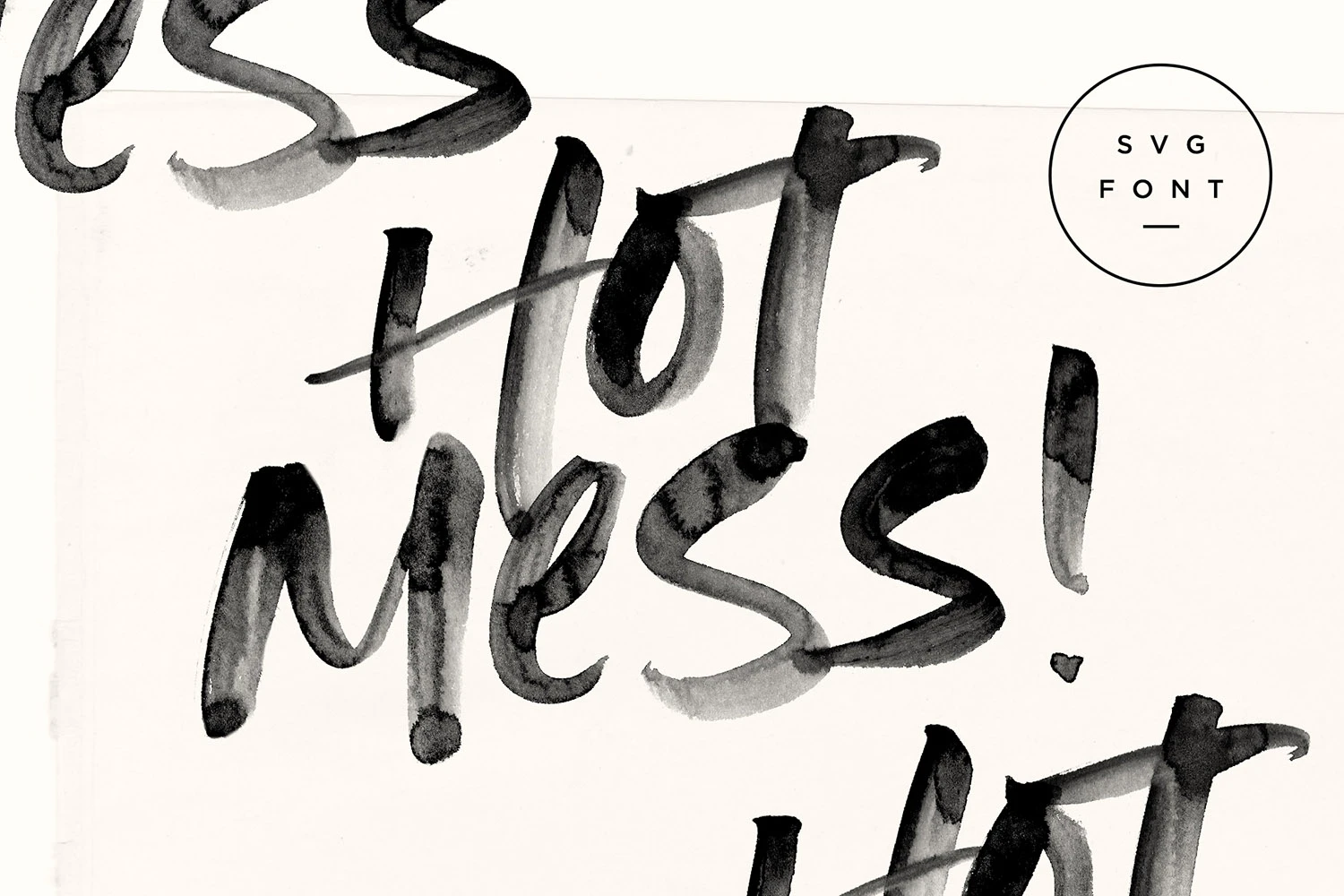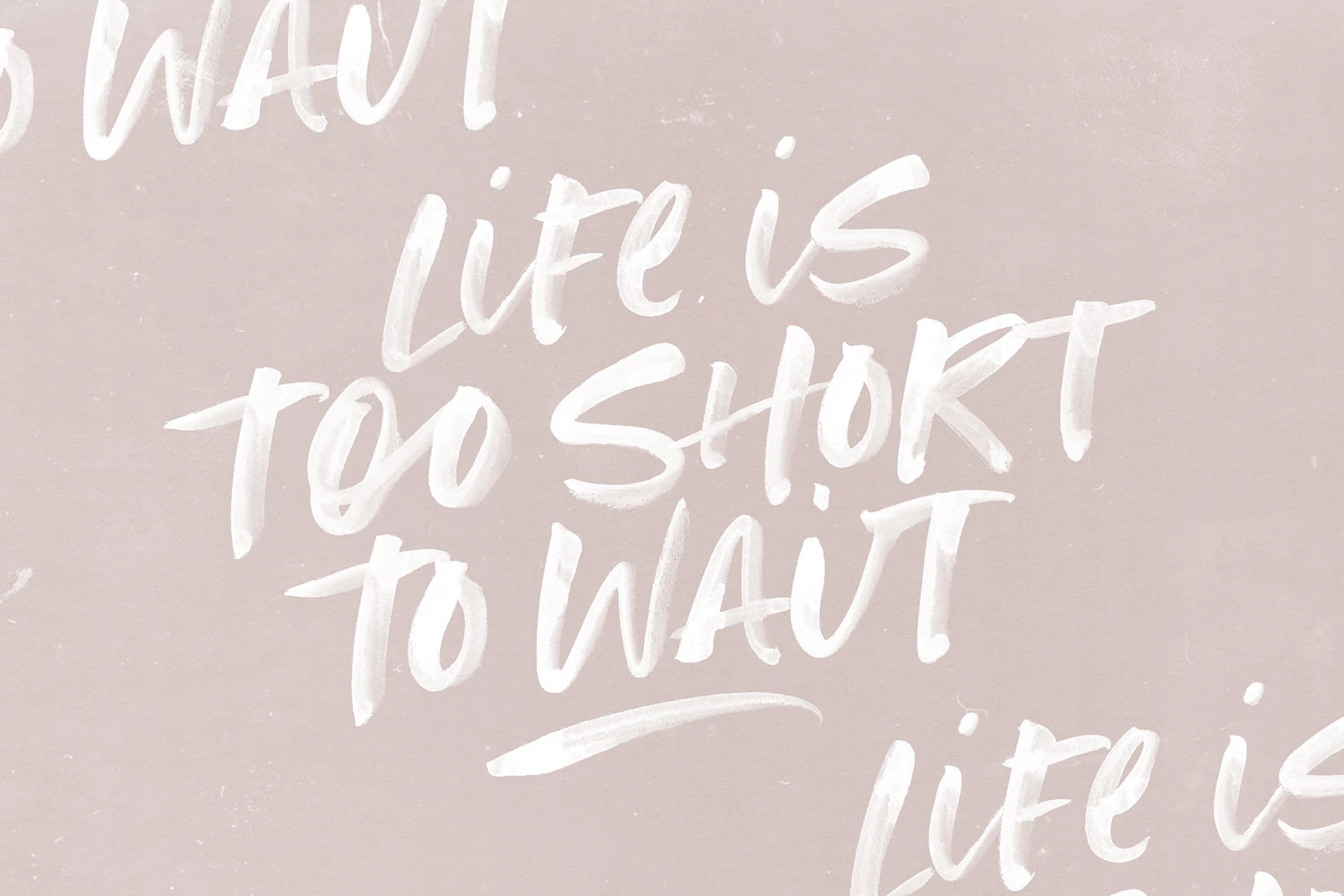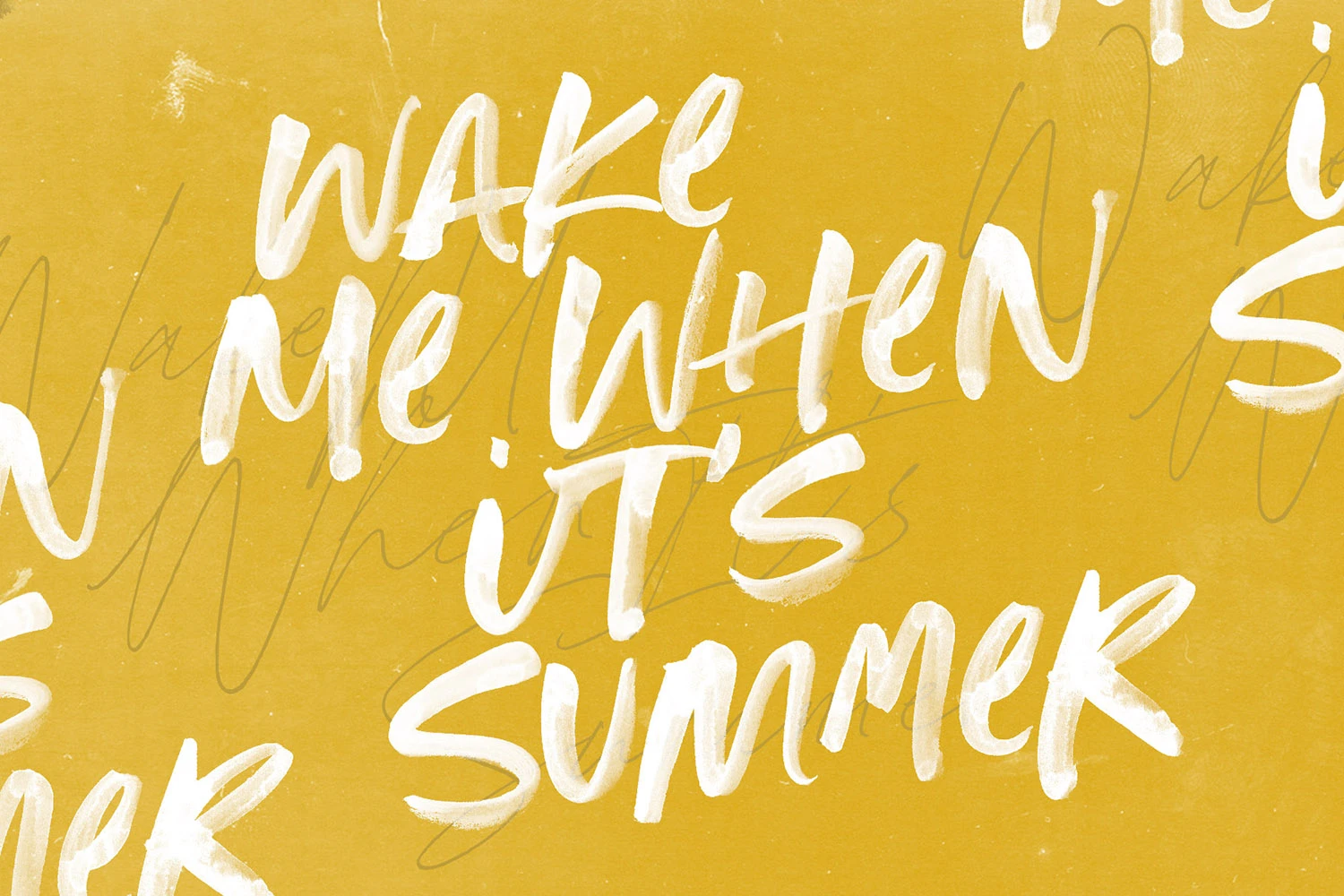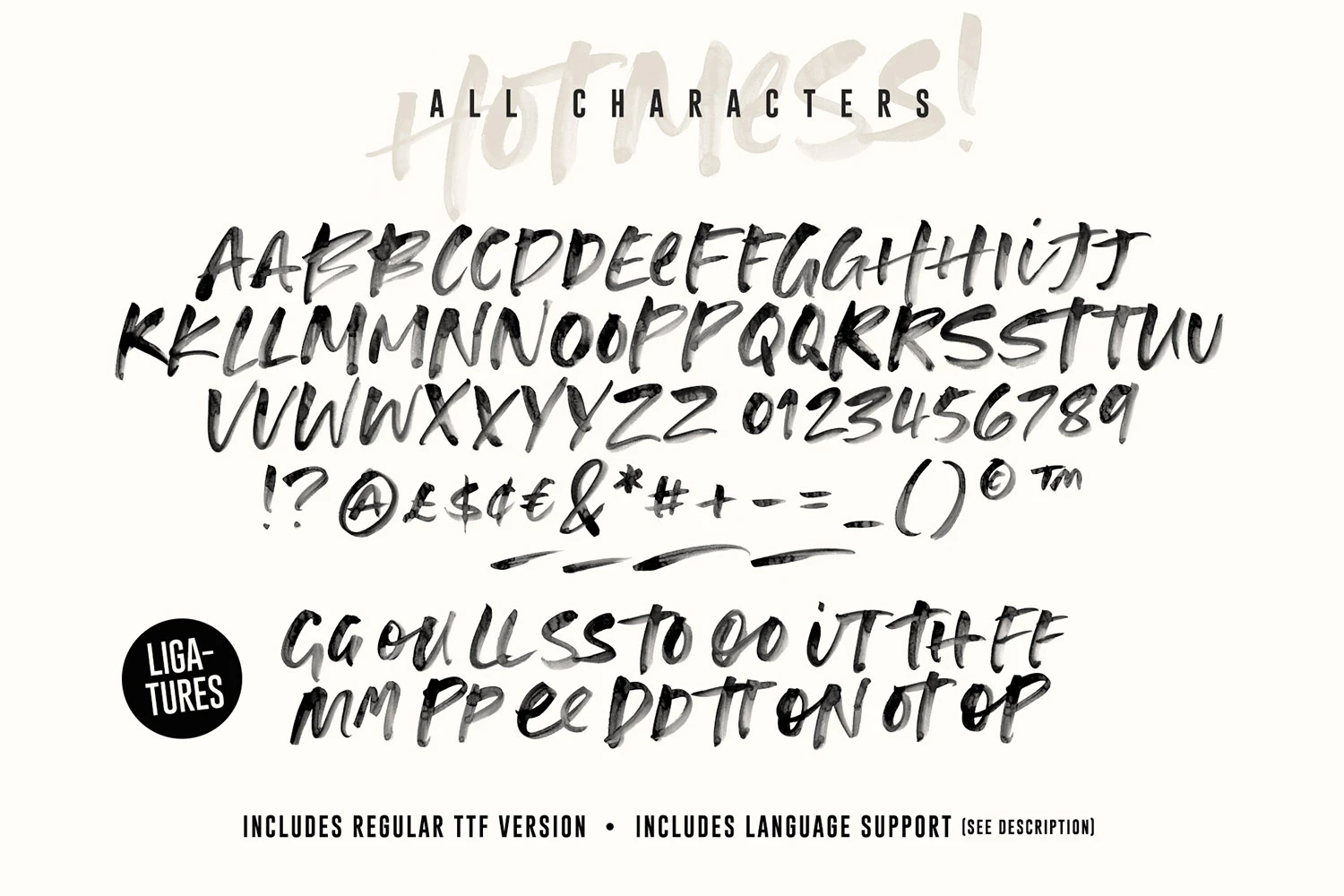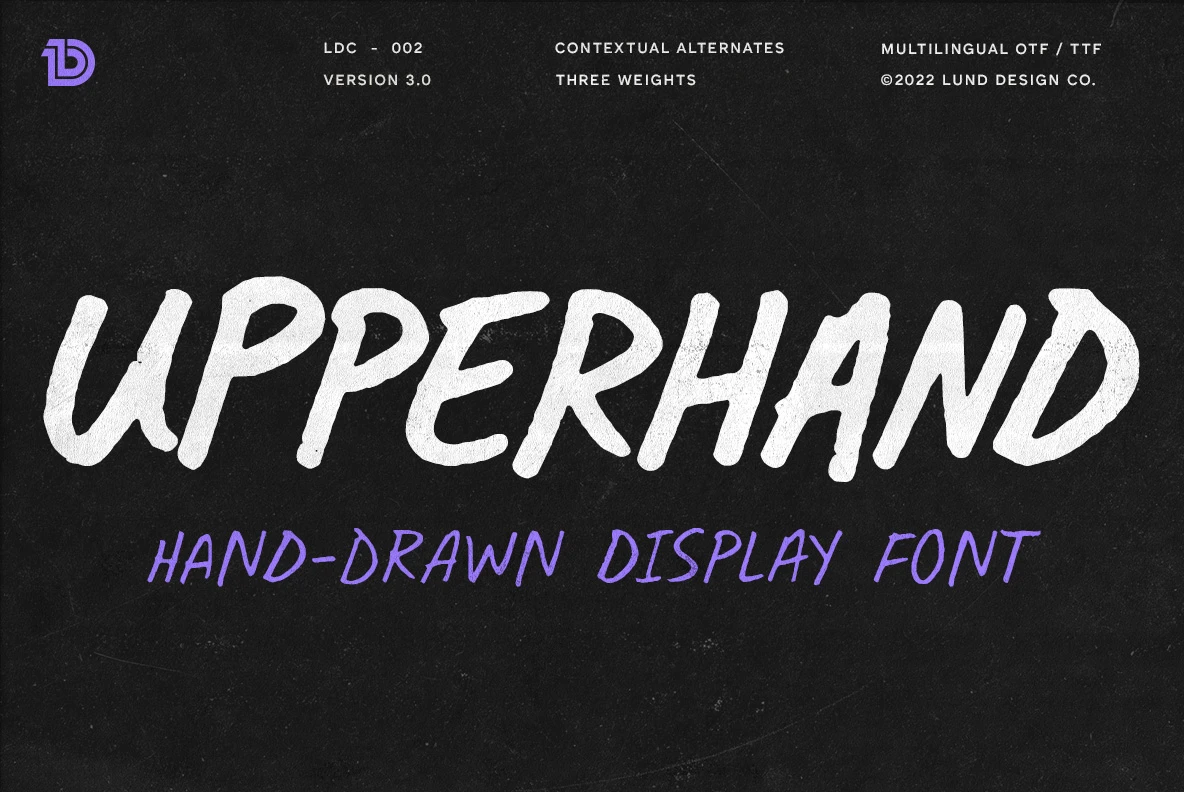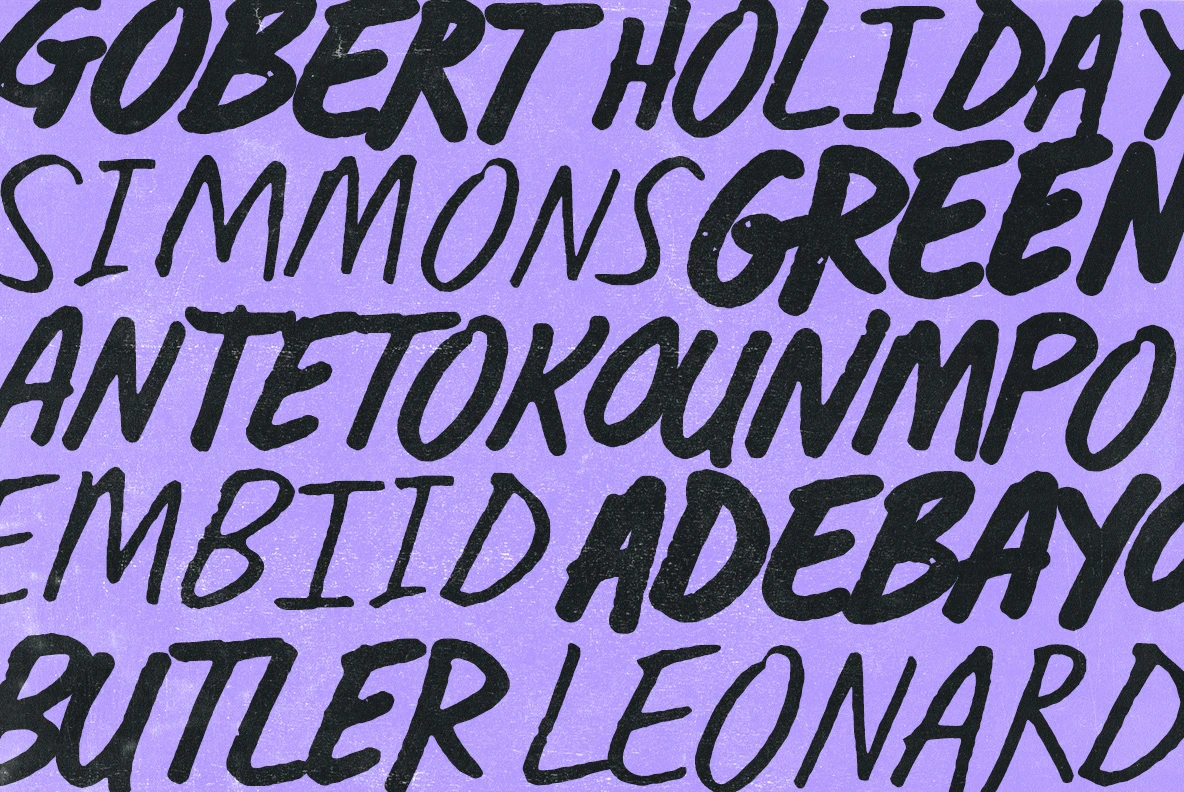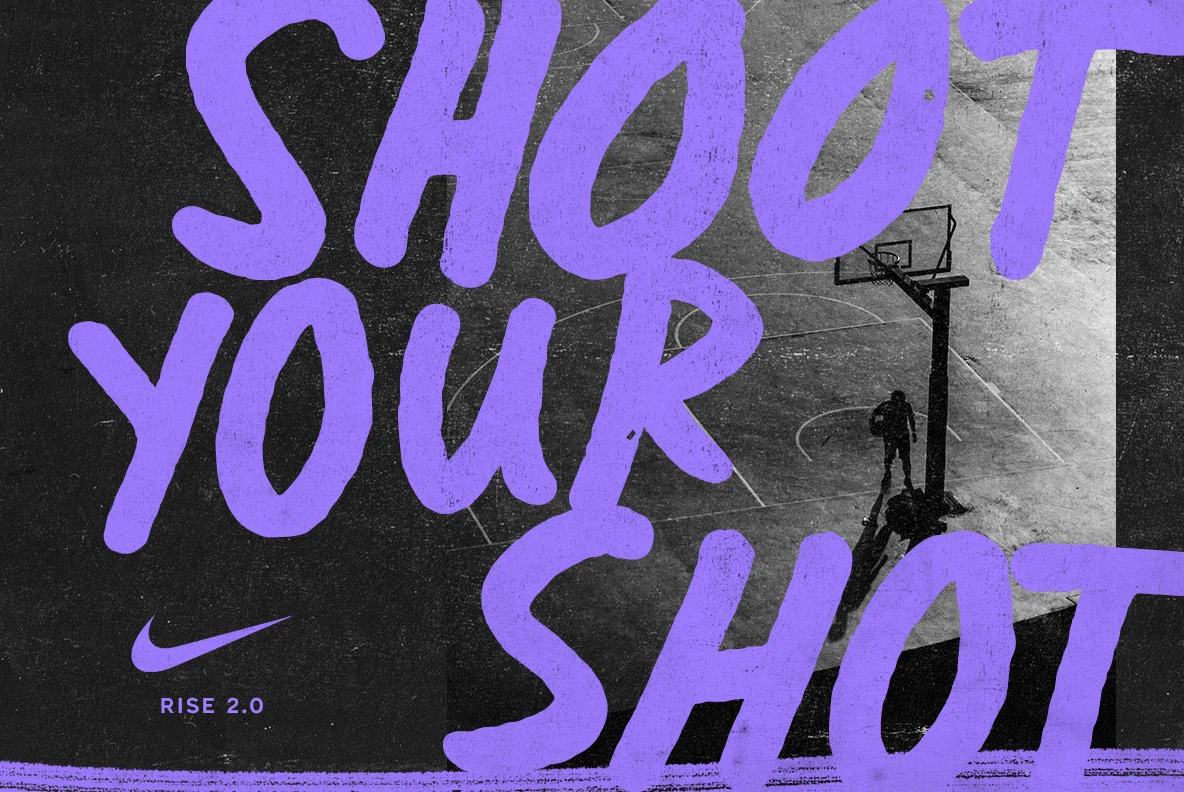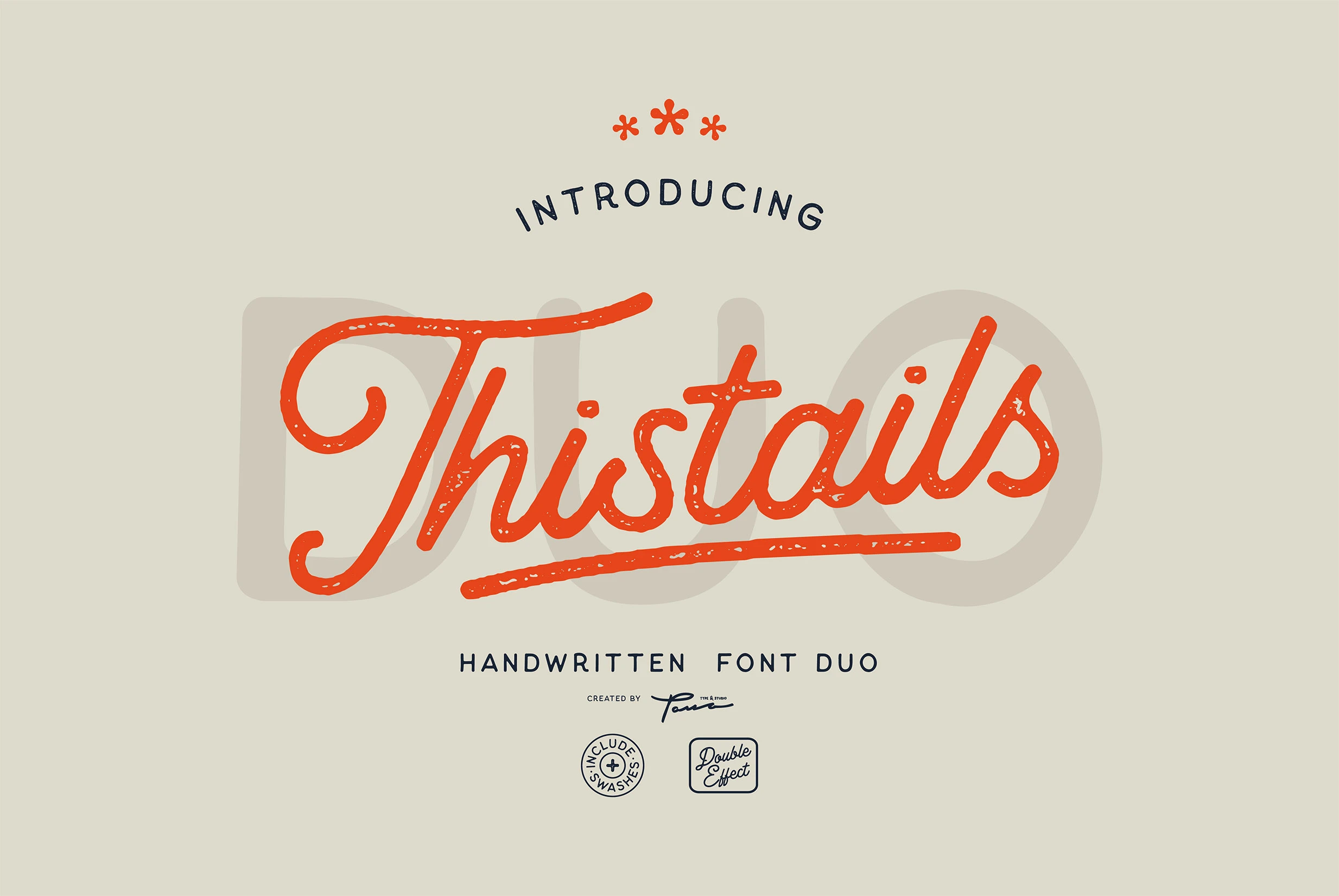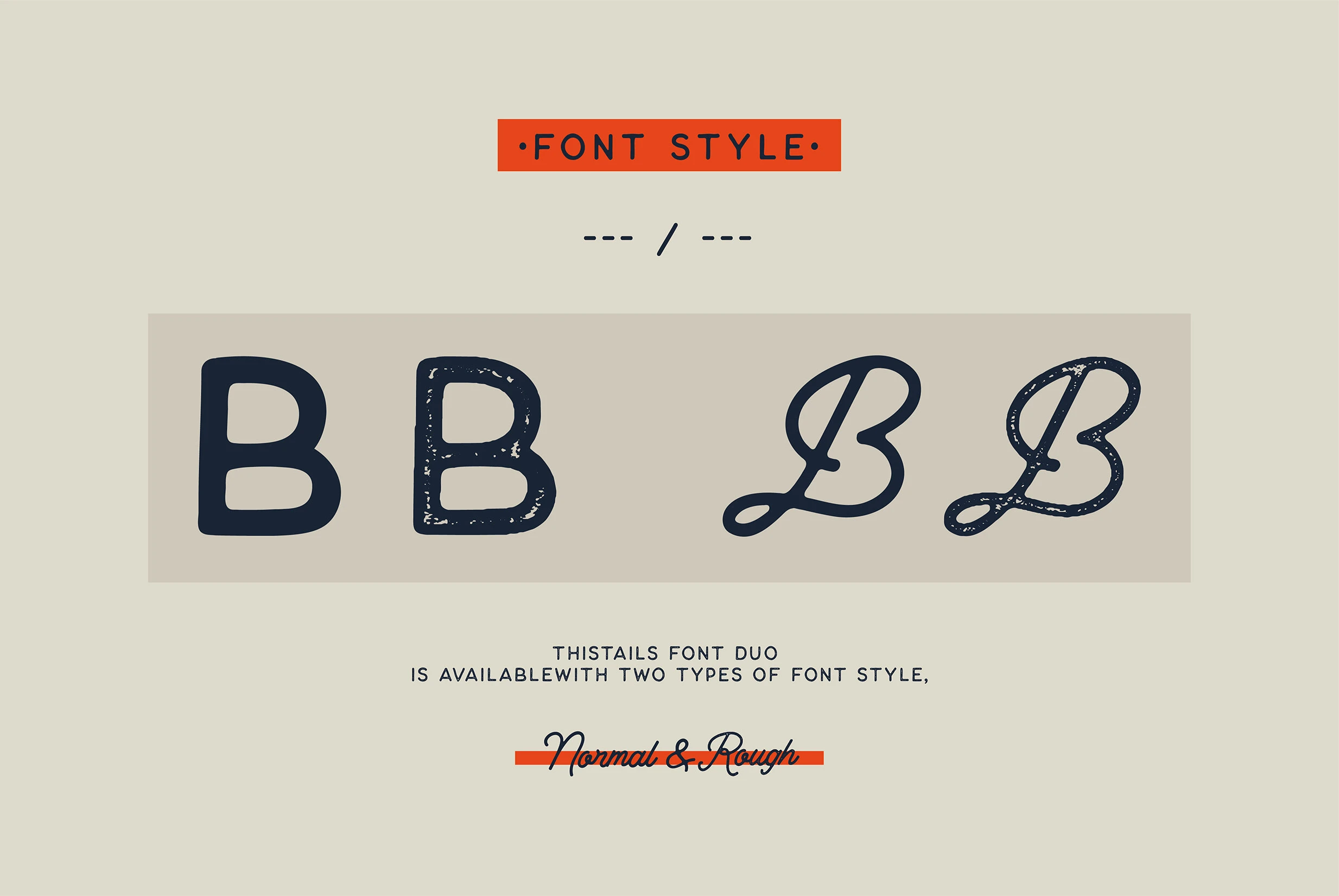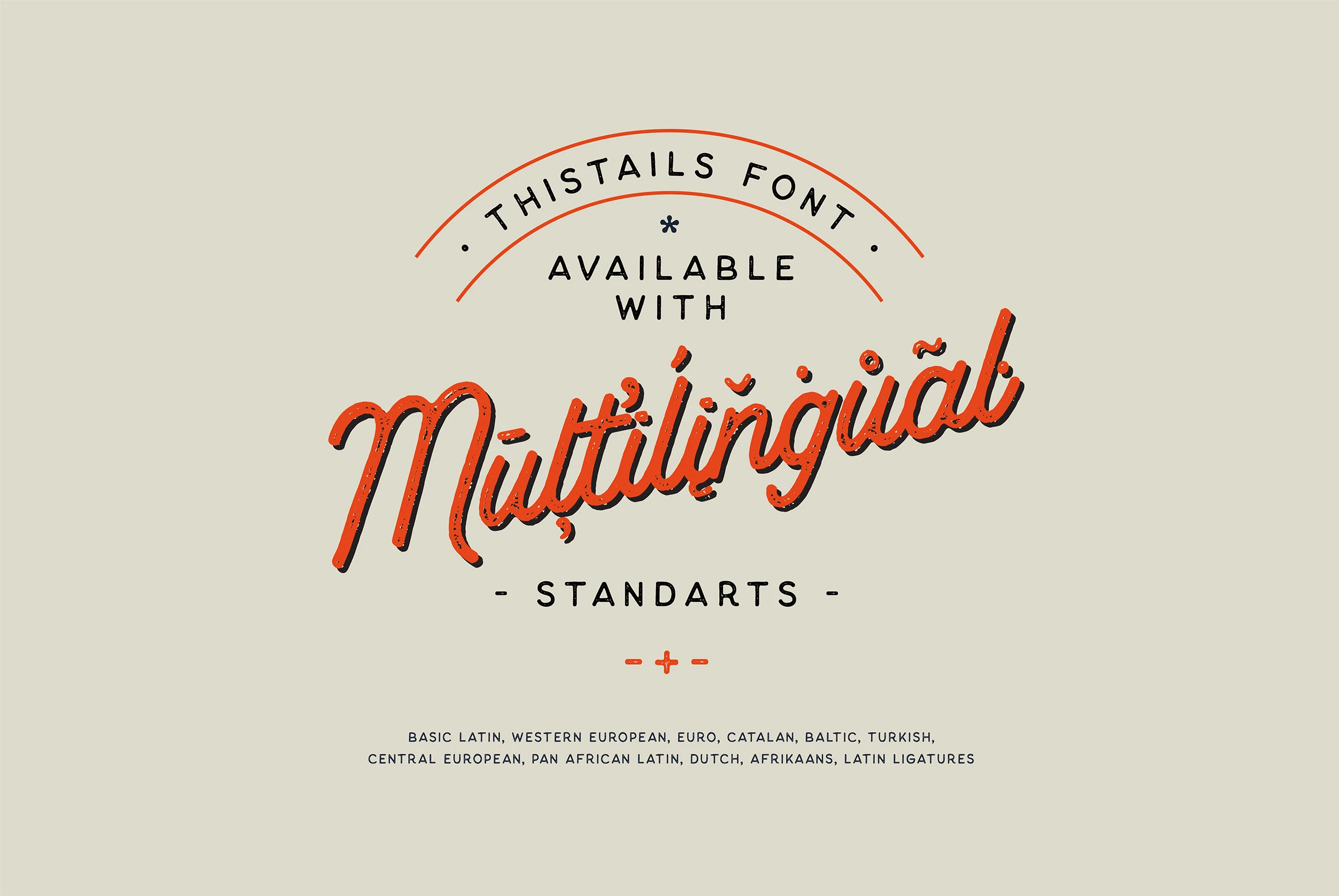
Logos are a vital aspect of branding and can help a company stand out in a crowded market. Handwritten Fonts add a personal touch to a logo and convey a sense of warmth, creativity, and friendliness. In this blog post, we will explore how to create a logo with handwritten fonts from YouWorkForThem, the leading font marketplace for digital designers.
When it comes to logo design, the font you choose can make a big difference, as you well know. While many companies opt for clean and simple fonts, but handwriting can add a personal touch that sets a brand apart. In this post, we’ll show you how to design a logo with handwritten fonts from YouWorkForThem.
Slideshow: Hot Mess
Choosing the Perfect Handwritten Font from YouWorkForThem
YouWorkForThem has a wide variety of handwritten fonts to choose from, so it’s essential to select the right one for your brand. Here are some tips for choosing the perfect font:
- Consider Your Brand Personality: The font you choose should reflect your brand’s personality. If you’re a fun and playful brand, you might opt for a whimsical handwritten font. If you’re a more serious brand, a bold and structured font may be more appropriate.
- Legibility: While handwritten fonts are appealing, they can sometimes be difficult to read. Ensure your font is legible in various sizes, whether it’s on a business card or a billboard.
- Stay Consistent: Consistency is key when it comes to branding. Choose a font that will be consistent across all platforms, from your website to social media pages.
Slideshow: Upperhand
Designing Your Logo with Handwritten Fonts
Now that you’ve chosen the perfect font, it’s time to design your logo. Here are some tips to consider:
- Keep it Simple: A simple logo is more memorable and easier to recognize. Focus on creating a clean, simple design that incorporates your chosen handwritten font.
- Color Choice: Color choice can be just as important as font choice. Make sure your color palette aligns with your brand’s personality and values.
- Experiment with Layout: Play around with different layouts and arrangements of your font and brand name. You may want to place the handwritten font in a prominent position or make it the focal point of the logo.
Slideshow: Dakota
Tips for Making Your Handwritten Font Logo Stand Out
Your handwritten font logo is almost complete, but how do you make it stand out from the rest? Here are some tips to consider:
- Add a Touch of Color: Consider adding a pop of color to your logo to make it more eye-catching.
- Incorporate an Icon: An icon or symbol can add extra meaning and depth to your logo.
- Use Negative Space: Negative space can help your logo stand out and make it more memorable.
Slideshow: Thistails Font Duo
YouWorkForThem for Memorable Handwriting Fonts
In conclusion, creating a logo with a handwritten font from YouWorkForThem can add a personal and memorable touch to your brand. With these tips in mind, you’ll be able to choose the perfect font and design a unique logo that represents your brand’s personality and values.
Now, it’s time to get creative and start designing! Don’t be afraid to experiment with different fonts, layouts, and colors. Remember, your logo is a reflection of your brand, so make it something that you’re proud to show off.